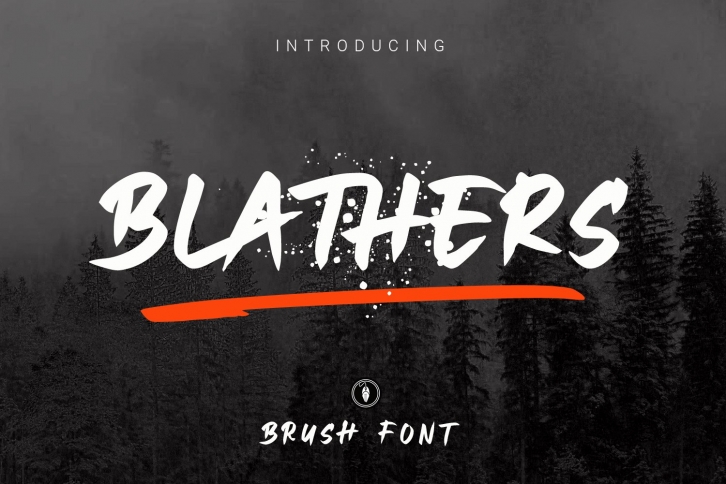
WEB is a beautiful font that was designed by Bandofol studio. It's a great choice for designers and creatives who need such a font. It was released on January 9, 2021 and the file size is 1.80 MB. WEB may give a more youthful, expressive and casual look to your project. It is a very beautiful, refined, elegant, and high-quality font.